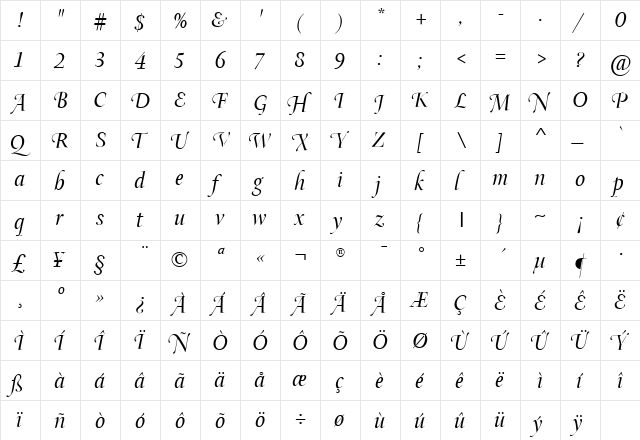
ArepoItalicSwash Regular
Design Context for ArepoItalicSwash Typeface
ArepoItalicSwash brings a calligraphic fluidity to the page — its connecting strokes and expressive curves give it an unmistakably human quality.
Font Pairing: Combine ArepoItalicSwash with a simple geometric sans for maximum contrast — the tension between flowing curves and clean structure is a classic typographic pairing.
Pro Tip: Use ArepoItalicSwash for short runs of text — names, titles, or taglines. Extended body copy in script faces tires the eye quickly.